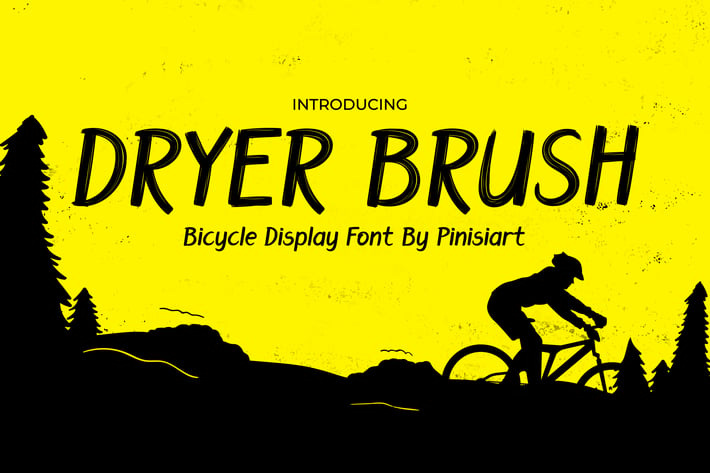
Dryer Brush – Bicycle Display Font
Introducing the Dryer Brush – a versatile and modern Display Font perfect for adding a touch of edgy graffiti style to your designs. This Handwriting Font has been carefully crafted to suit a variety of creative applications, from Instagram posts to movie titles, and music album covers to sport team logos, and even Youtube channels.
The Dryer Brush features a unique Sans Serif Font design, making it easy to read and highly legible, while its rough texture and organic style add an exciting element of street art to your projects. Its modern yet bold appearance captures the energy and dynamism of the urban landscape and is sure to make your designs stand out from the crowd.
This Music Font is packed with plenty of natural foliage and floral, organic, and natural style of font, providing endless possibilities for customization and personalization. Whether you’re creating branding materials for a new product launch, designing a poster for a concert or event, or simply adding a creative touch to your social media posts, the Dryer Brush is the perfect choice for any project that requires a touch of urban chic.
Get inspired and take your designs to the next level with the Dryer Brush – the ultimate Display Font for those who want to make a statement with their typography!